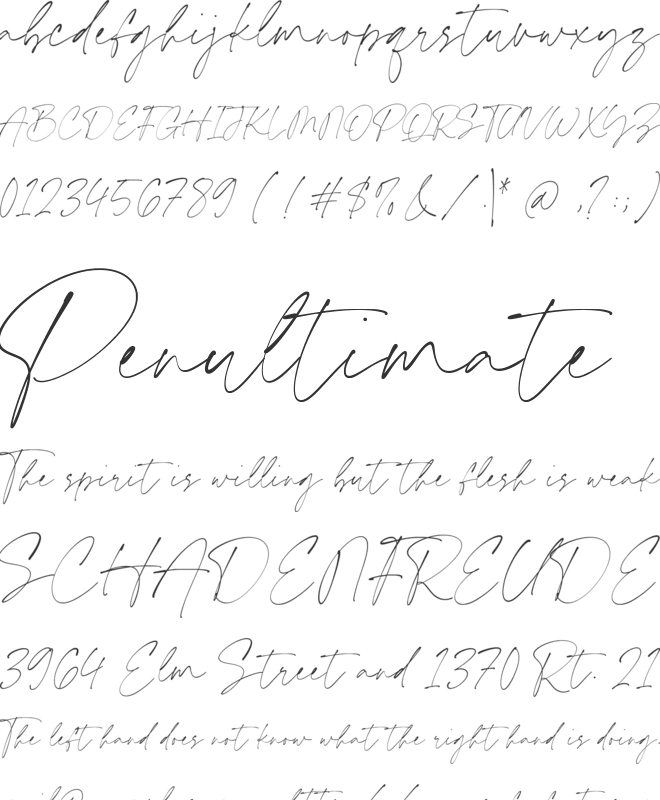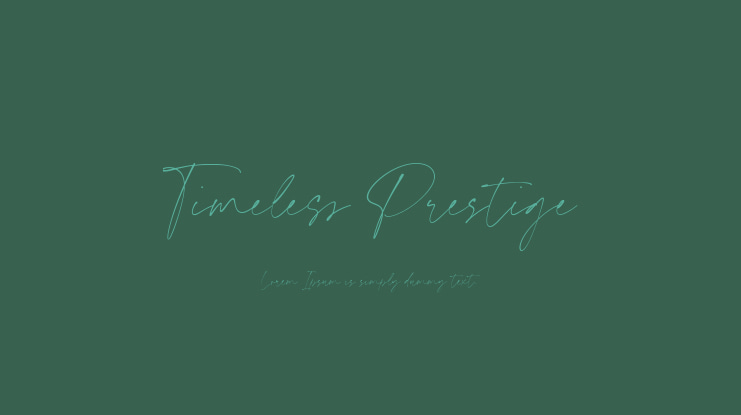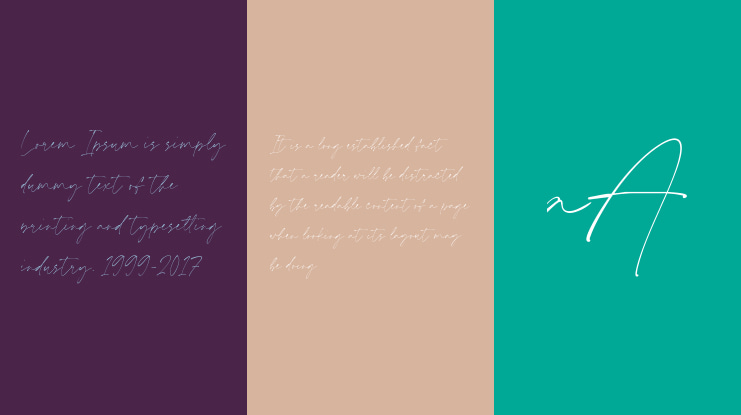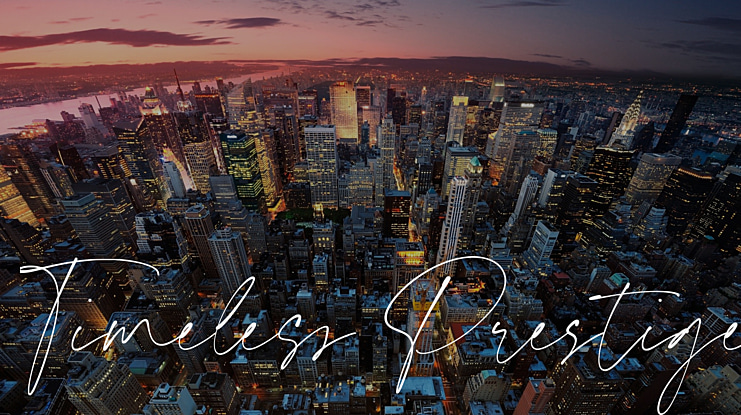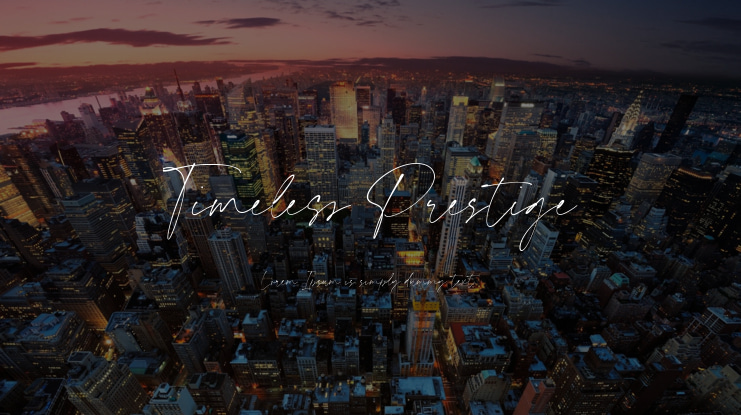
Timeless Prestige - elegant Script font is modern and fresh, and will bring a warm and inviting feel to your business. Take advantage of the fonts and experience the magic for yourself.
Timeless Prestige is perfect for product packaging, branding project, megeenazine, social media, wedding, or just used to express words above the background.
Timeless Prestige Features premium :
-Full Set of standard alphabet and punctuation
– Timeless Prestige also multilingual support.